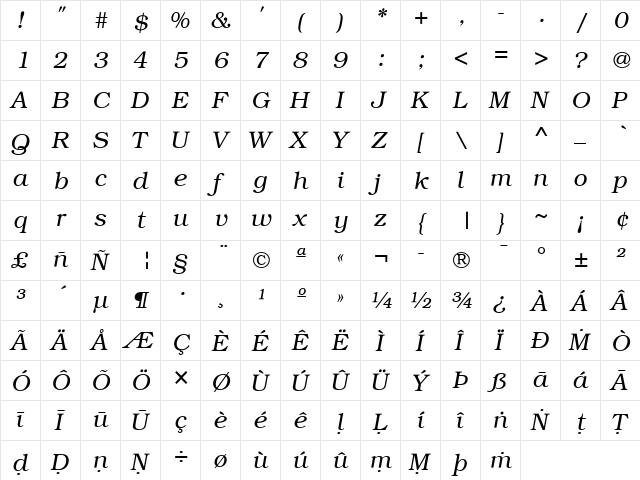
Pali Bookman Regular
Design Context for Pali Bookman Typeface
Pali Bookman offers clean, dependable letterforms without strong stylistic allegiance, making it a practical choice for designers who need flexibility.